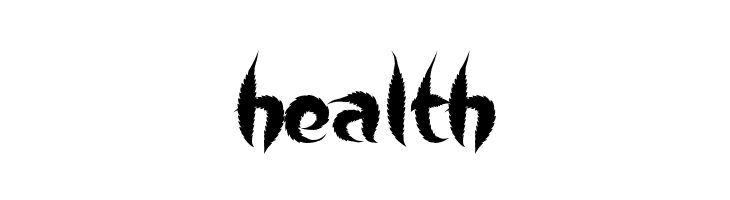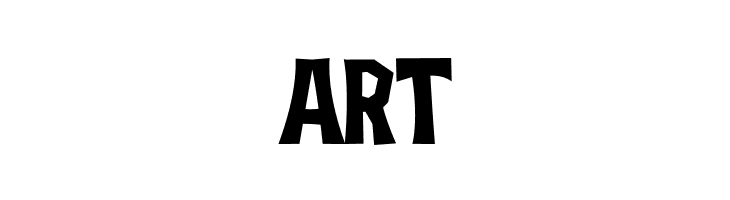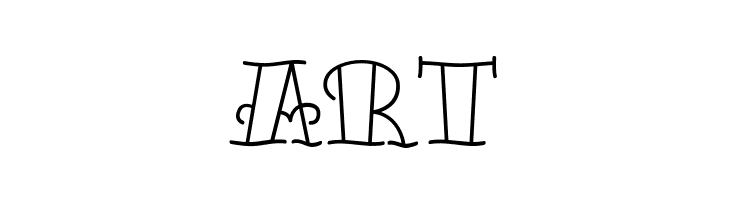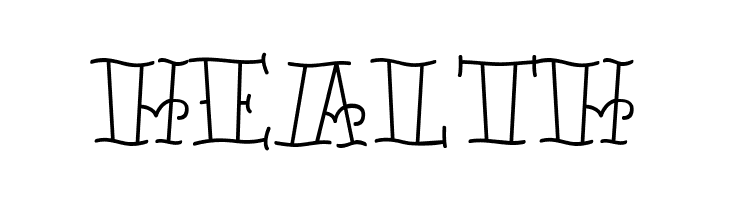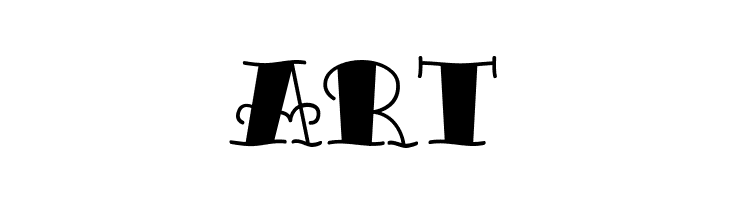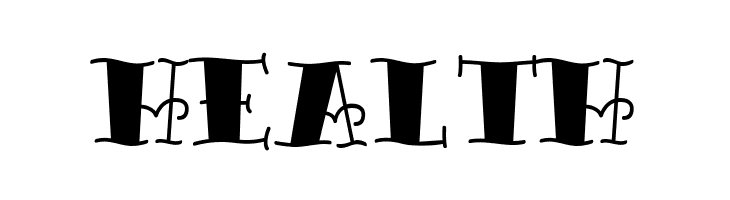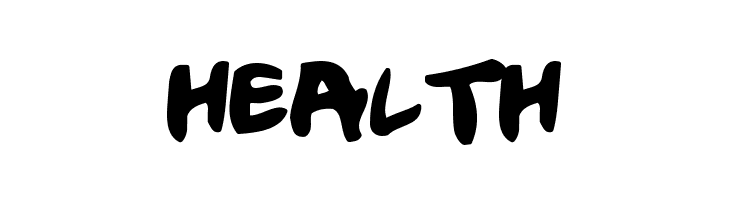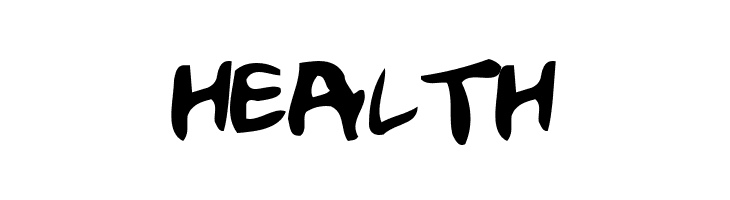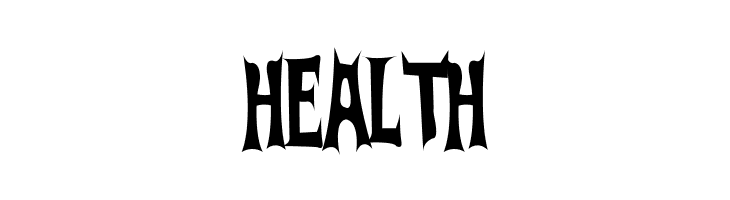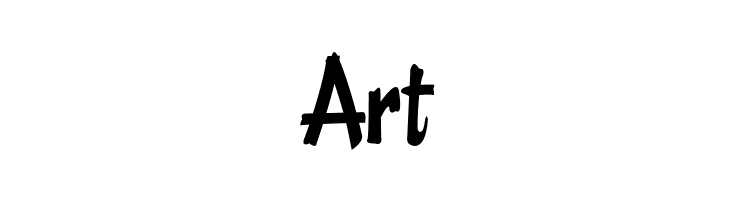
A bold, nature-inspired font with leaf-like characters and sharp, jagged strokes.
A bold, playful font with jagged, hand-drawn edges and a cartoonish style.
An artistic and ornate font inspired by traditional tattoo lettering, featuring intricate lines and curves.
A bold, decorative font with intricate tattoo-like embellishments.
A bold, playful handwritten font with thick, rounded strokes.
A bold, hand-drawn font with playful, irregular strokes.
A bold, gothic-inspired font with sharp, angular edges and a dramatic flair.
A bold, playful, hand-drawn font with a casual and friendly feel.
A bold, geometric font with sharp angles and solid shapes.
A dot matrix style font with a retro digital display look.